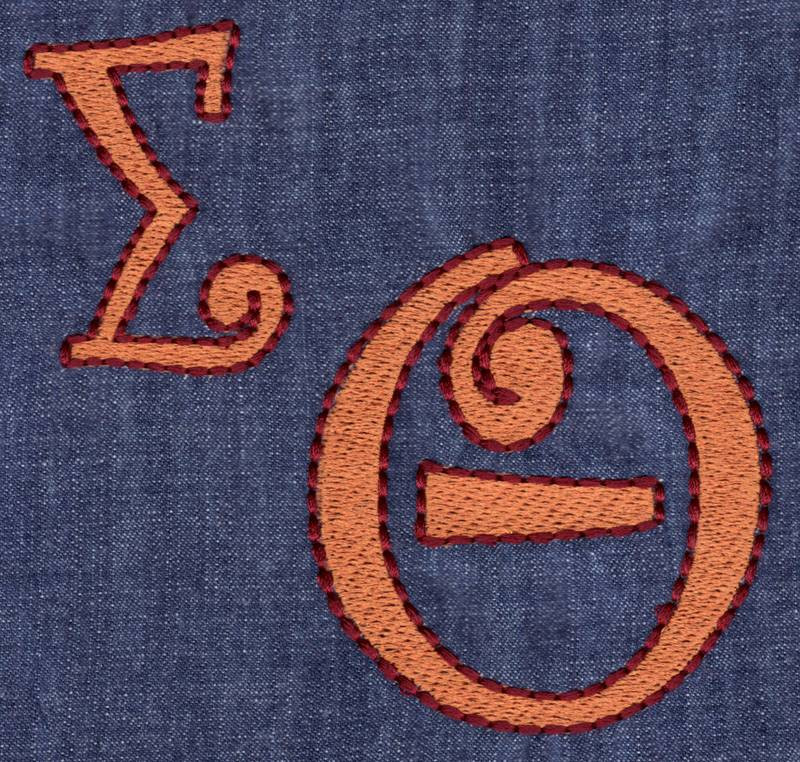
413 Curlz Greek Fill & Floss Font
Curlz Greek Fill & Floss Font comes in 2", 3", 4" & 5" heights based on the capital "alpha". Includes all 24 Greek characters finished in fill stitch with Floss Stitch outlines in two-color set up. Floss Stitch stitches out on all embroidery machines using standard embroidery thread. Many characters in the 4" and 5" set exceed standard 4x4 hoop limitations.